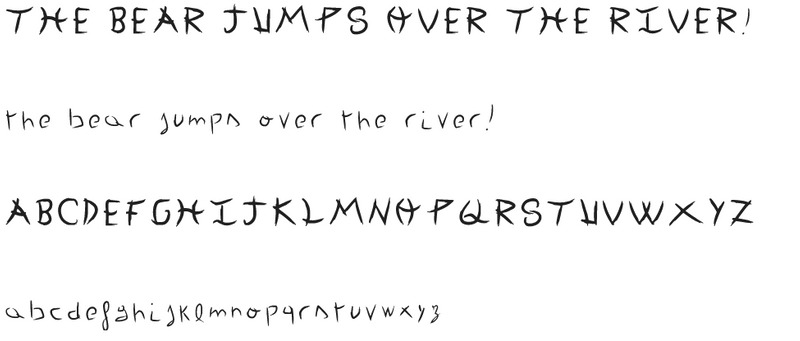
Brushing Font From Success Selection
A very special font handmade and hand written using adobe illustrator with a type of brush font using capital and small letters. it can be used to writing stories and writing any type of document like it is written by hand. you will love this font and will be using it again and again.